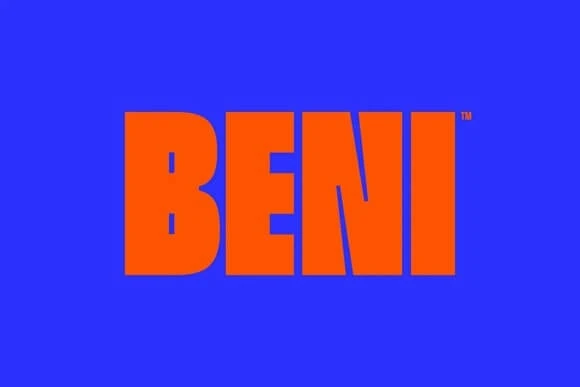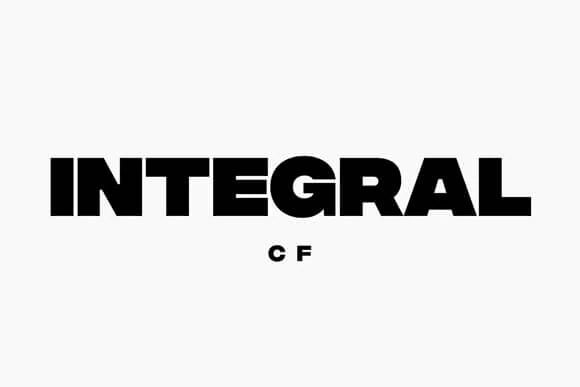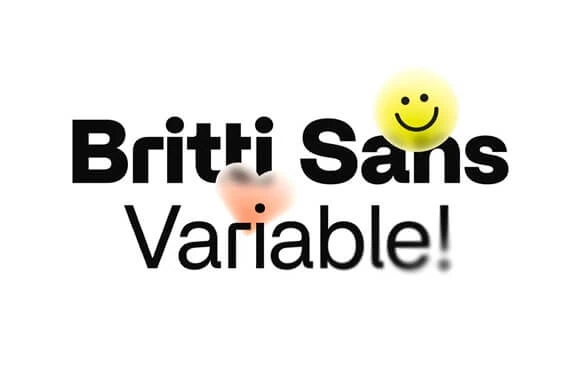
Every graphic designer needs a solid selection of bold fonts in their creative toolkit. Whether youโre making a website, putting together visual assets for an ad campaign, or creating promotional items like posters and apparel, you want your work to be sharp, clear, and easy to read. Bold fonts will accomplish this.
To help you save time scrolling through endless pages looking for the perfect font, we created a comprehensive list of the best bold fonts that are available today. Each font in this guide was hand-picked based on its features, the type of projects theyโre useful for, and their popularity among the design community.
By using these bold fonts in your work, you can create a wide range of impactful designs that leave a lasting impression on your audience.
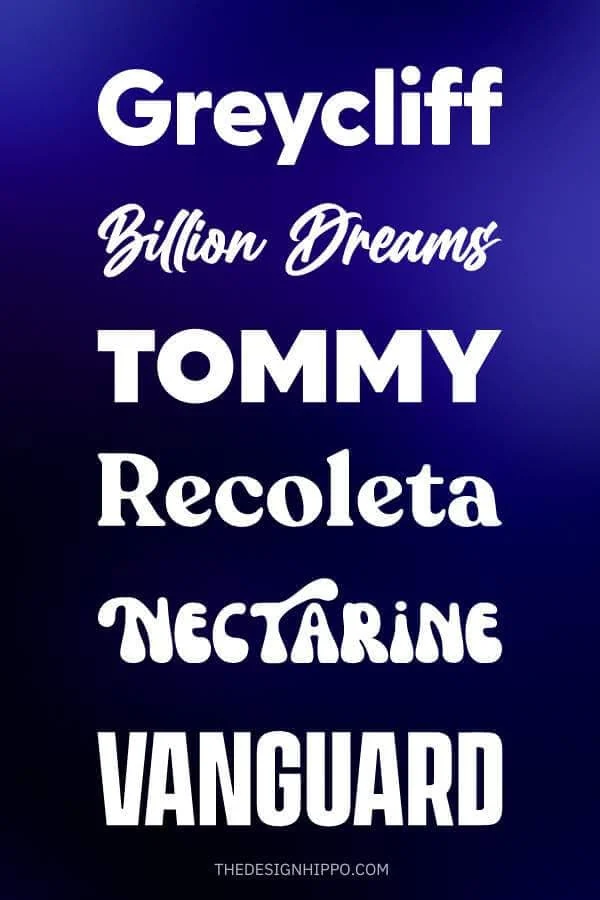
Best Bold Fonts – Our Top Picks
- Best Overall – Kurdis Font Family
- Best for Logos – Made Tommy
- Best Script – Mighty Sunday
- Best Sans Serif – Greycliff CF
- Best Handwritten – Billion Dreams
- Best Serif – Recoleta
- Best Condensed – Bison
- Best for Posters – Beni
- Best Extra Bold – Integral CF
- Best Modern – Monigue
- Best for Websites – Britti Sans
- Best for Headings – Vanguard CF
Best Bold Fonts
We chose all the fonts below based on our firsthand knowledge and experience as professional designers. We know what makes a great font, and we love sharing our favorites with you.
Read through the bold typefaces below to find the perfect match for your next creative project.
Kurdis Font Family
Best Bold Font Overall
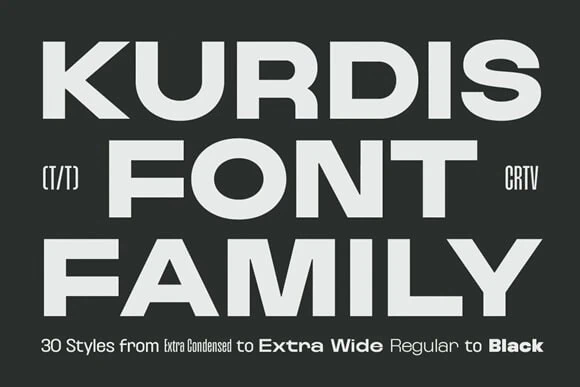
Kurdis Font Family is our top recommendation for designers needing a bold font. It comes with all the font styles you need for every type of design you might create.
The modern sans serif font family comes in 30 total style sets. This includes six different widths and five different weights.
Use thin and regular-sized fonts for long bodies of text on websites, word documents, or posters. And the large and wide-style fonts for eye-catching headings and titles.
Made Tommy
Best Bold Font for Logos
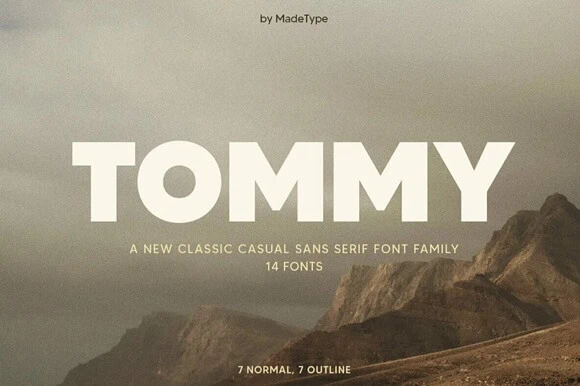
For a bold font that will make your logos look sharp, choose Made Tommy. The clean lines and bold design of the letters will make your logo clear and easy to read.
The stylish sans serif font family also comes with an outline version of the font. You want your logo to be easily recognizable so people will remember your brand. Mix and match the solid and outline styles to create a modern logo that catches the eye.
Mighty Sunday
Best Bold Script Font
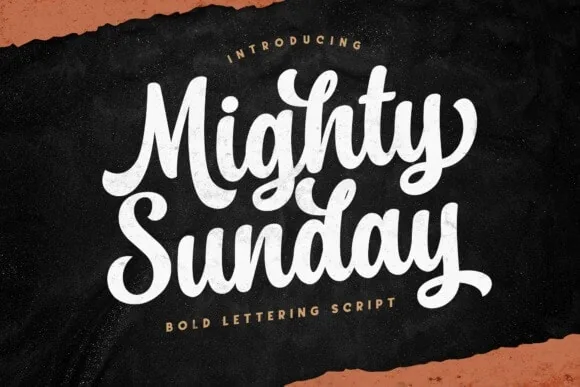
If youโre looking for a thick script font, consider using Mighty Sunday. The smooth letters have a clean and modern style. The alternate characters also give the text a beautiful look.
We also love this font because you can use it on a variety of print and digital designs. Whether youโre creating a unique greeting card, printing a t-shirt design, or DIYing a piece of wall art, youโll end up with a beautiful final product.
Greycliff CF
Best Bold Sans Serif Font
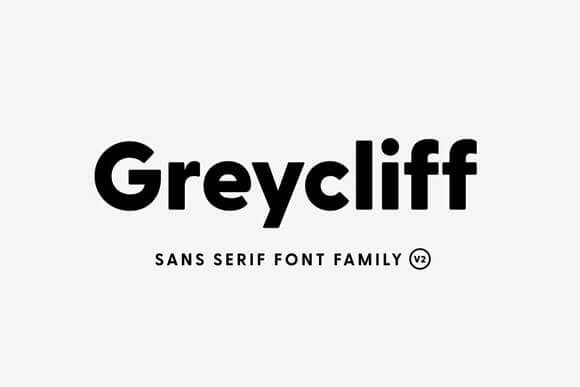
Greycliff CF is a sans-serif typeface with a powerful, classic look. The letters have an even geometric composition that makes the text easy to read.
You can use this font for many different types of projects, as it comes in a variety of weights. Add it to your library to use on any print or digital design that needs a strong and modern typeface.
Billion Dreams
Best Bold Handwritten Font
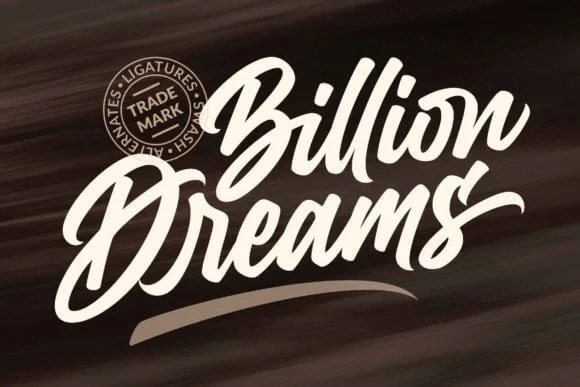
For a bold font thatโs handwritten, we love Billion Dreams. The thick, sweeping letters give the font an authentic handmade touch.
The characters also include a wide selection of stylistic alternates, ligatures, and swashes. You can use these to embellish the text.
The personal feel of the handwriting makes this font perfect for sentimental projects. Greeting cards, thank-you notes, personalized gifts: The options are endless.
Recoleta
Best Bold Serif Font
Our top pick for a bold serif font is Recoleta. Popular 70s-style fonts inspire its design, giving it a bit of a nostalgic feel. The font was created by combining different features of 70s fonts to create a timeless font with a fresh new look.
This rounded font is available in various weights ranging from thin to black. Use the light weights for designs with a lot of text and the heavy weights for headings and titles. Perfect for everything from posters and logos to packaging design.
Bison
Best Bold Condensed Font
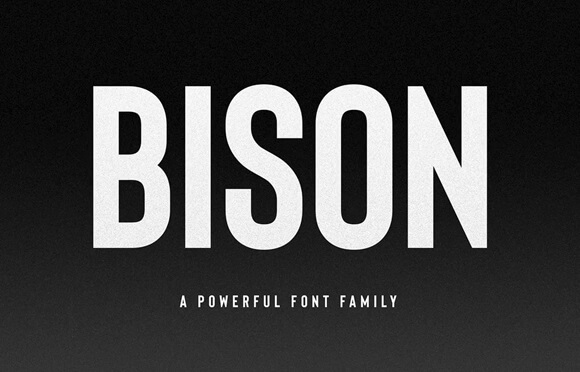
Bison is a strong sans-serif font family with an authoritative feel. The letters have a perfect balance of smooth curves and hard, straight lines. Like many other fonts on this list, Bison comes in several different styles. Each variation looks sleek and modern.
We especially love this font because it looks great in all design media. Use it on websites, social media graphics, printed posters, apparel design, product packaging, and more.
However, your perfect bold font depends on specific needs and project types. For logos, Made Tommyโs crisp lines make it a standout. For web-focused designs, Britti Sans’ readability makes it a prime choice.
Remember, the right bold font can transform your design from ordinary to unforgettable. So, whether you lean towards the popular Proxima Nova or the playful Nectarine, each font brings its unique flavor to the table.
Explore, experiment, and let these bold fonts speak loudly in your designs!